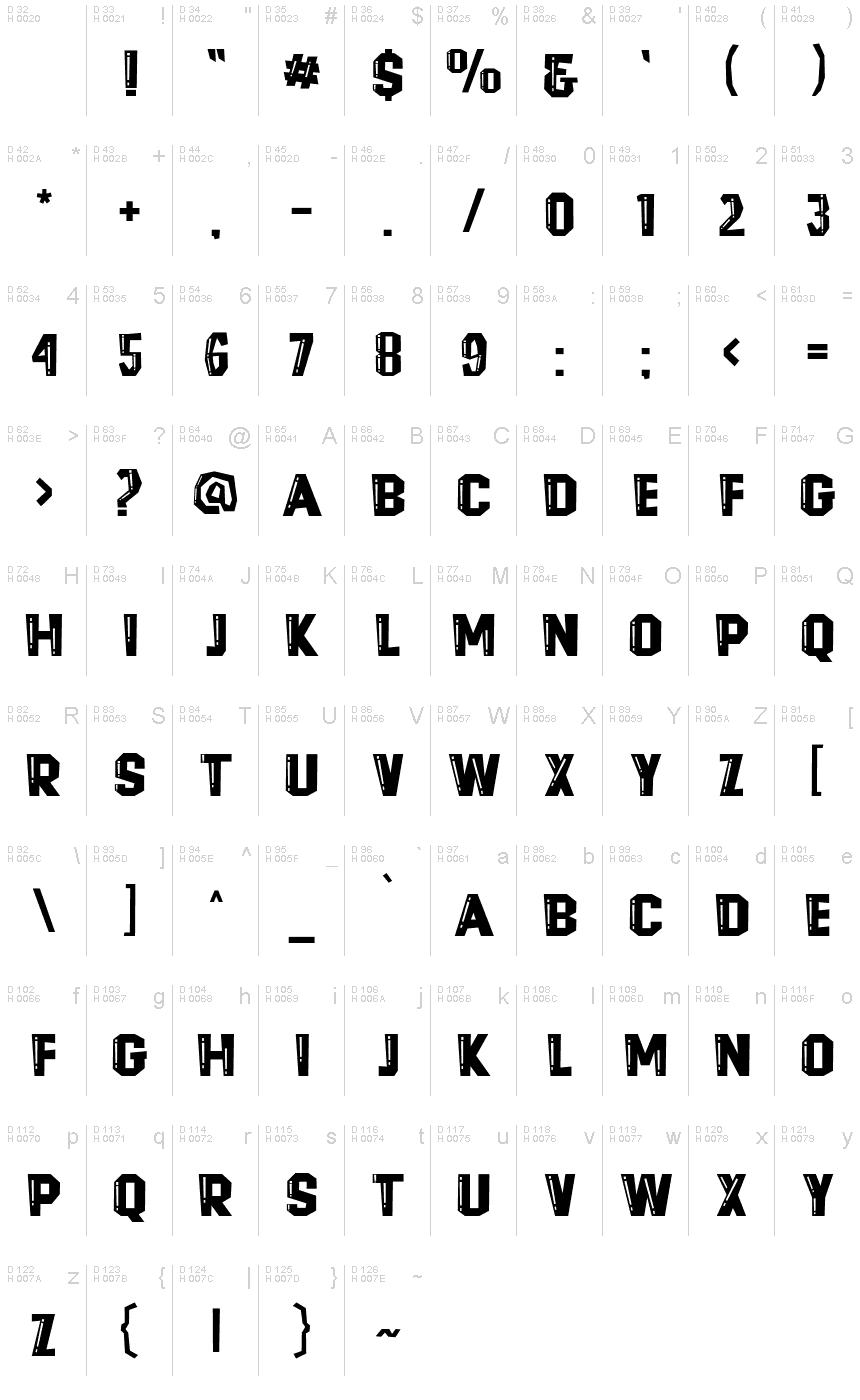
Hodlers
Hodlers, a bold and playful display font designed by Kurnia Setyadi, adds a touch of whimsy to any project. With its comic-inspired style, it brings an air of fun and creativity to children's books, greeting cards, and graphic novels. The bold weight ensures that your message stands out with confidence and impact. Let Hodlers be your go-to choice for lively headlines on websites or eye-catching posters for events. This versatile font perfectly captures the essence of joy and excitement, making it suitable for a wide range of projects in need of a distinctive typeface.